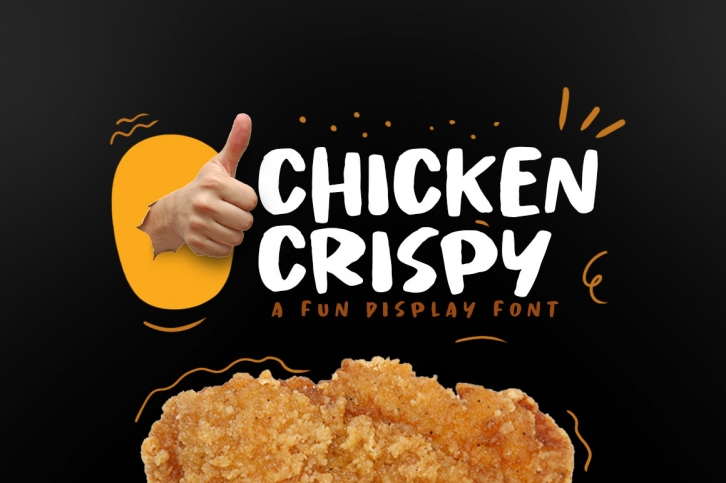
Chicken Crispy is a fun, retro-styled, and cool display font. Whether you use it for cartoon-related designs, children’s games, or just any creation that requires a lovely touch, this font will be an amazing choice.